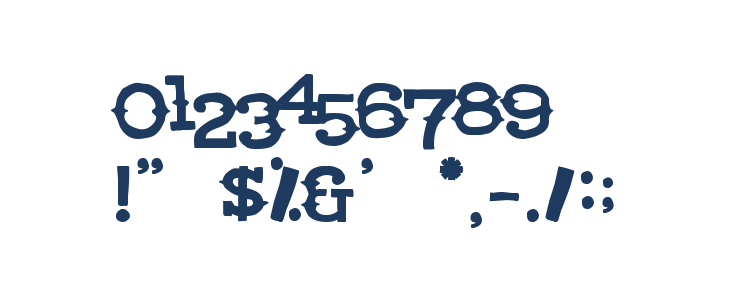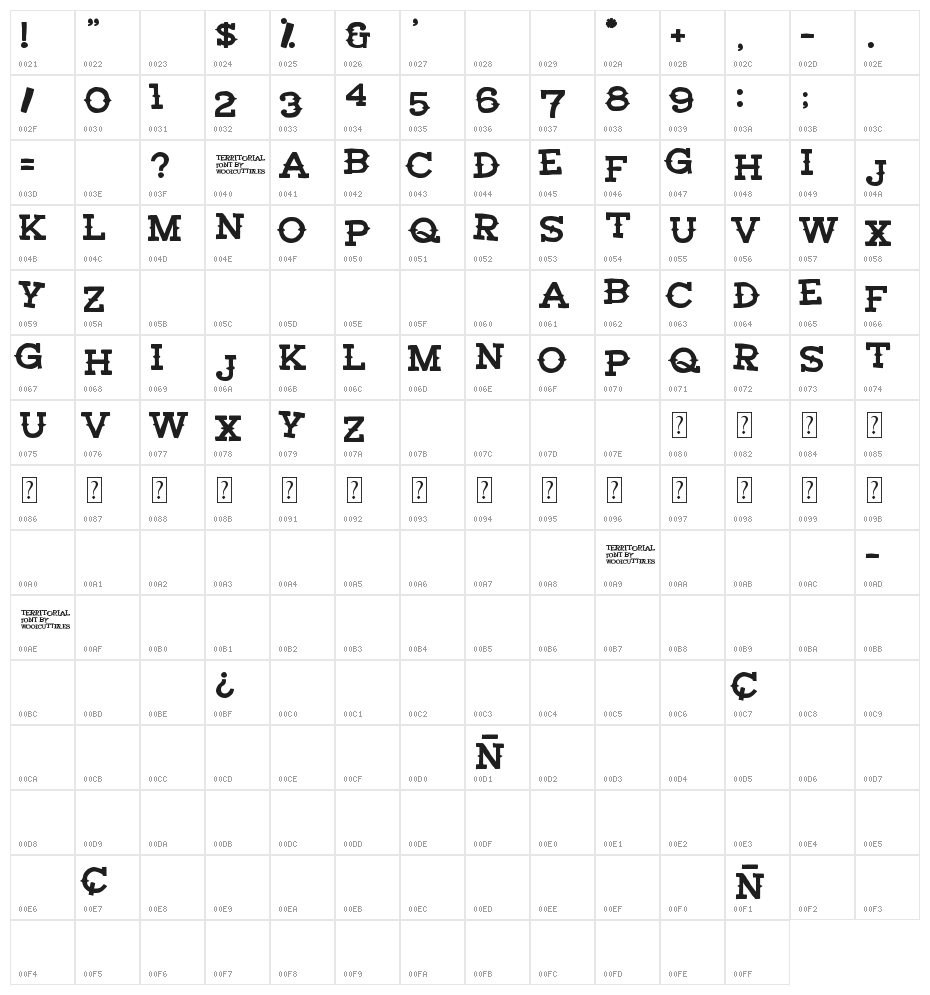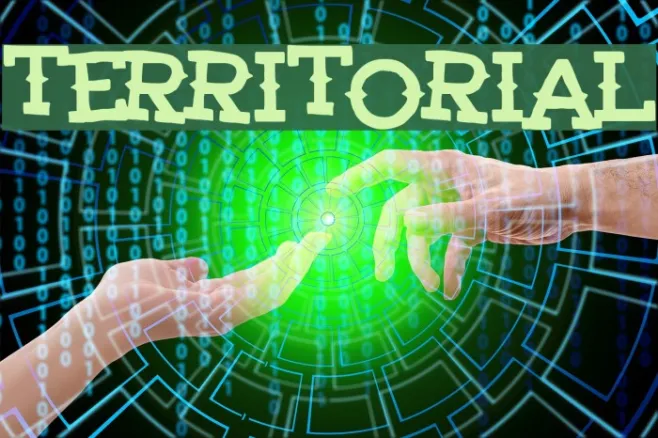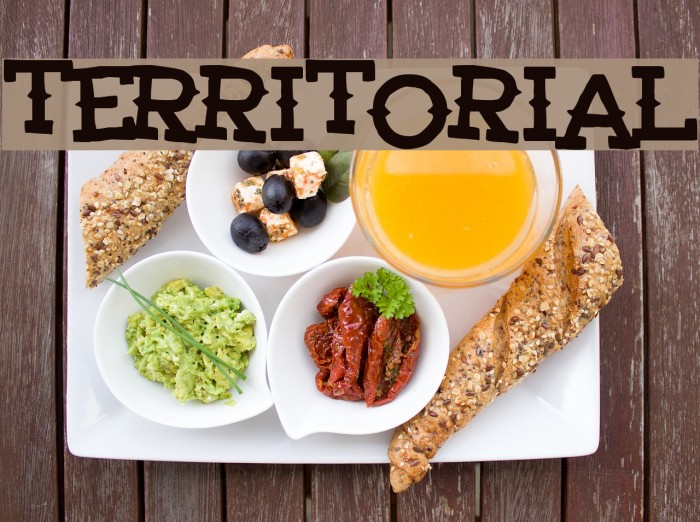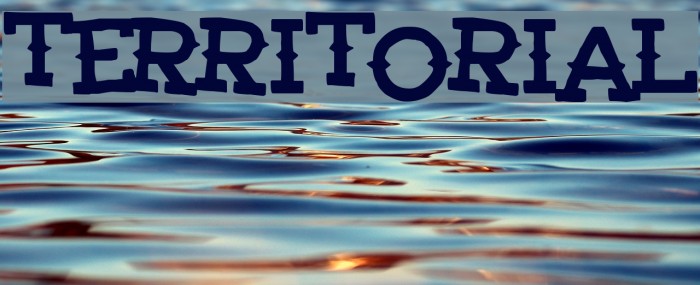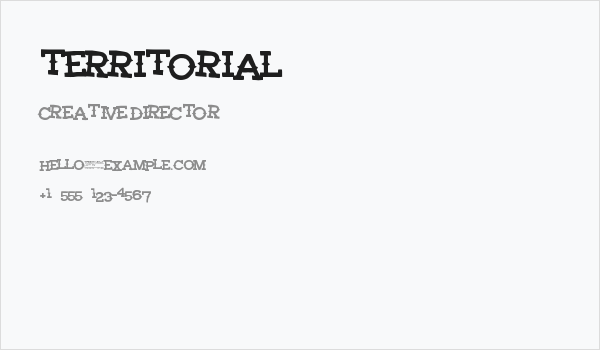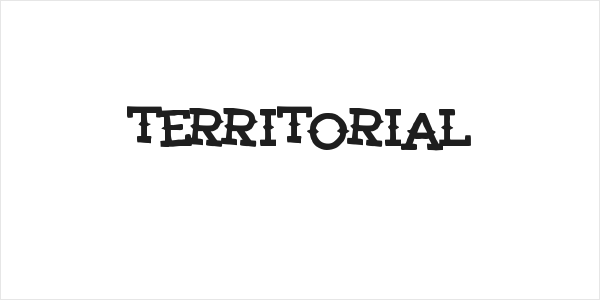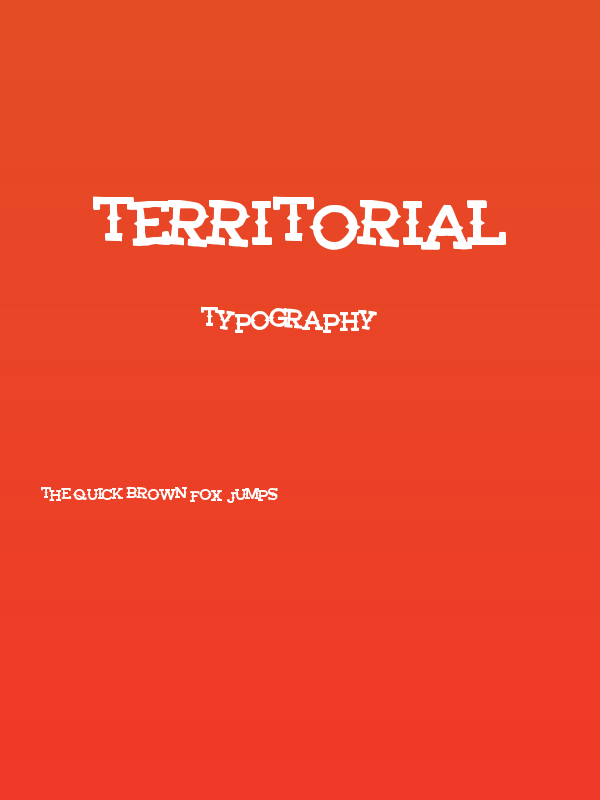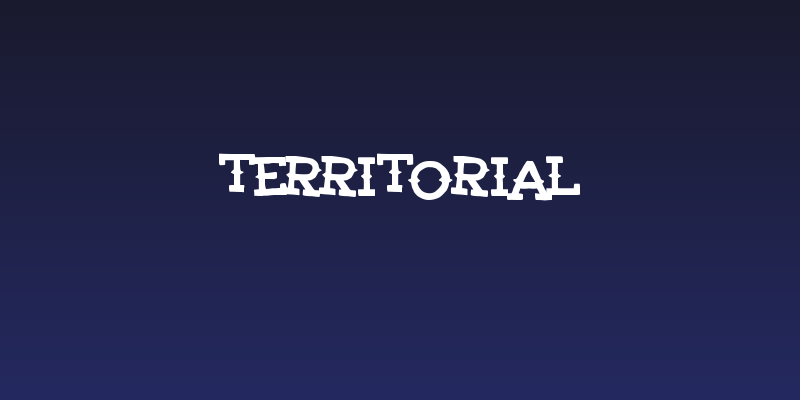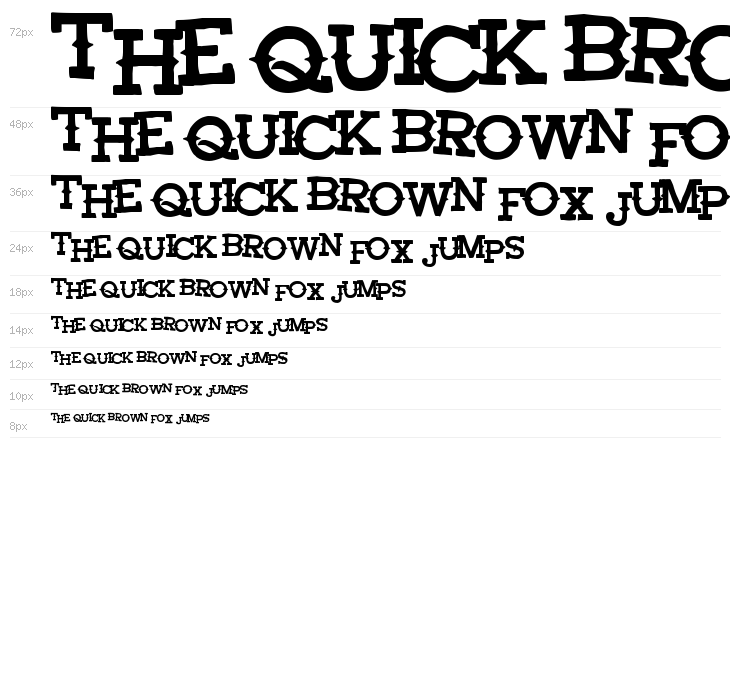
Territorial Font
Territorial Description
This font features a bold and playful design with a distinct, hand-drawn appearance. The characters are characterized by thick strokes and exaggerated serifs, giving it a whimsical and cartoonish feel. The uppercase and lowercase letters maintain a consistent style, with a slightly uneven baseline that adds to its quirky charm. Numbers and special characters follow the same playful aesthetic, making it suitable for creative and informal projects. The font's unique style is eye-catching and memorable, perfect for designs that require a touch of fun and personality.
| Proposed Projects | Ideal for children's books, comic strips, playful branding, and creative posters. |